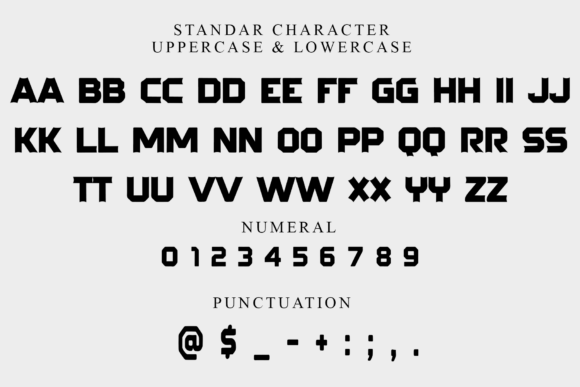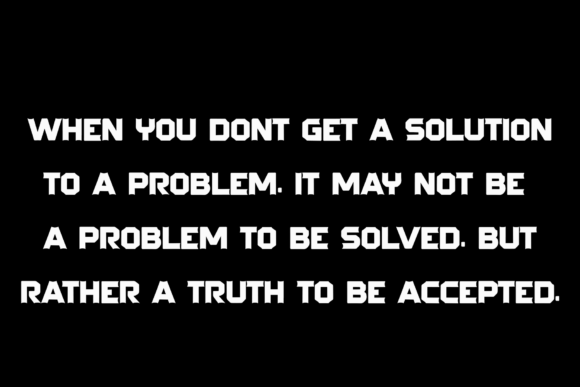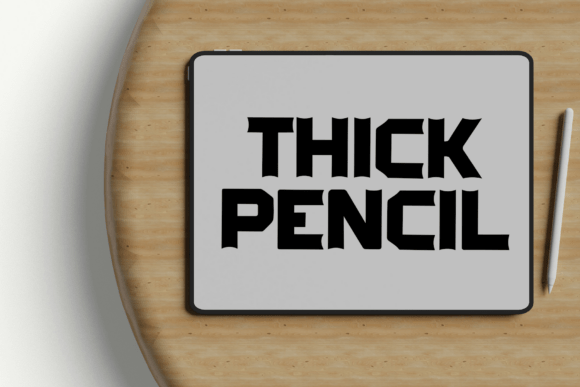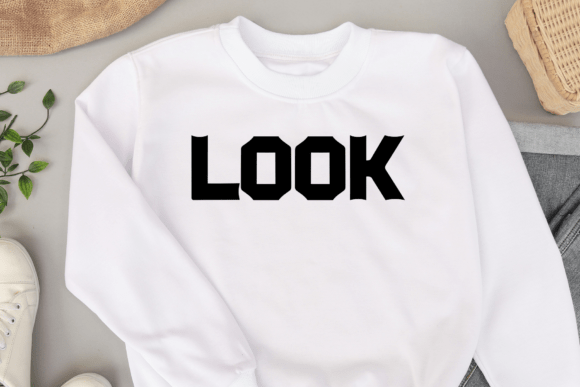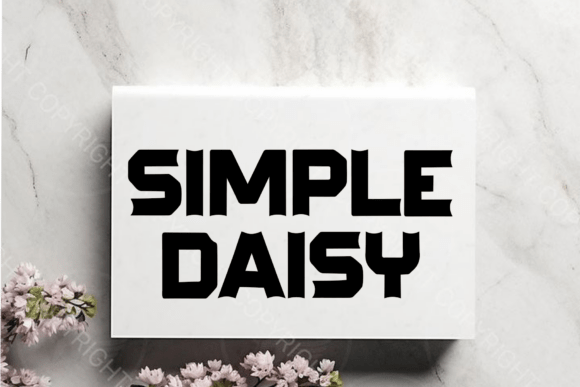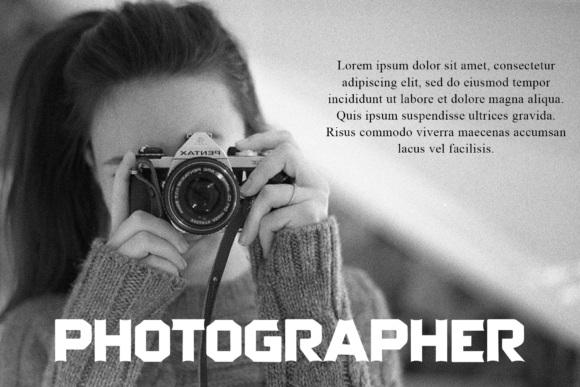
Add a Playful Punch to Your Next Project with Crayons Colour Font
Are you looking for a font that can add a dash of fun and creativity to your next project? Look no further than Crayons Colour, a modern handmade display font that is sure to make a statement. With its bold geometry, whimsical touch, and retro-comic flair, this font is perfect for designers and crafters who want to bring a sense of joyful creativity to their work.
The Unique Features of Crayons Colour Font
Crayons Colour font is a one-of-a-kind typeface that boasts thick, blocky letterforms with unique angular cut-outs. This distinctive design gives the font a playful and energetic feel that is sure to grab attention. The font’s “New Modern” aesthetic makes it a versatile choice for a wide range of projects, from children’s book titles and school event branding to vibrant packaging and social media content.
Crayons Colour font is designed to bring a sense of joyful creativity to your projects. Its bold and playful design makes it perfect for:
- Children’s book titles: Add a touch of whimsy and fun to your children’s book titles with Crayons Colour font.
- School event branding: Make your school events stand out with a bold and eye-catching font.
- Vibrant packaging: Add a pop of color and energy to your packaging with Crayons Colour font.
- Social media content: Make your social media content stand out with a fun and playful font.
- Toys and games: Crayons Colour font is perfect for designing labels, packaging, and marketing materials for toys and games.
- Lifestyle brands: If you’re looking for a font that can help you create a bold and energetic brand identity, Crayons Colour is a great choice.
Why Choose Crayons Colour Font?
So why choose Crayons Colour font for your next project? Here are just a few reasons:
- Unique design: Crayons Colour font has a distinctive design that is sure to set your project apart from the crowd.
- Playful and energetic: This font is designed to bring a sense of fun and creativity to your projects.
- Versatile: Crayons Colour font can be used for a wide range of projects, from children’s books to lifestyle brands.
- Easy to read: Despite its bold and playful design, Crayons Colour font is easy to read, making it perfect for titles, headings, and short paragraphs of text.
Tips for Using Crayons Colour Font
Here are a few tips for getting the most out of Crayons Colour font:
- Use it as a display font: Crayons Colour font is designed to be used as a display font, so use it for titles, headings, and short paragraphs of text.
- Experiment with colors: Crayons Colour font is perfect for adding a pop of color to your project. Experiment with different colors and gradients to find the perfect look.
- Pair it with a simple font: For body text, pair Crayons Colour font with a simple, easy-to-read font to create a striking contrast.
Crayons Colour font is a unique and versatile typeface that is sure to add a playful punch to your next project. With its bold geometry, whimsical touch, and retro-comic flair, this font is perfect for designers and crafters who want to bring a sense of joyful creativity to their work. Whether you’re designing for children, toys, games, or lifestyle brands, Crayons Colour font is a great choice. So why not give it a try and see how it can elevate your next project?